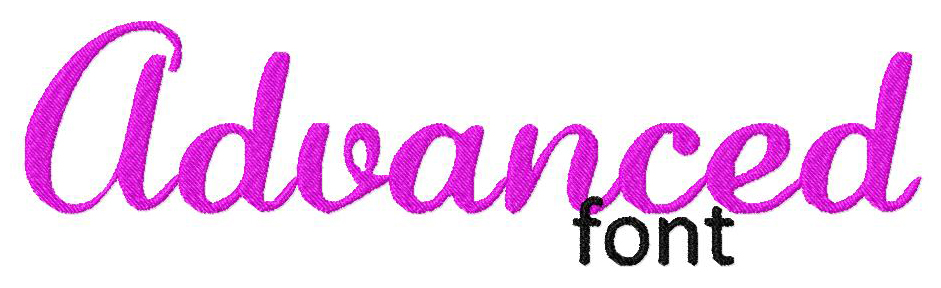
Stitch out this gorgeous set of monogramming goodness.
The Advanced Machine Embroidery Font Set includes all Uppercase and Lowercase Letters and Numbers in all of the following sizes: 1? 2? & 3?